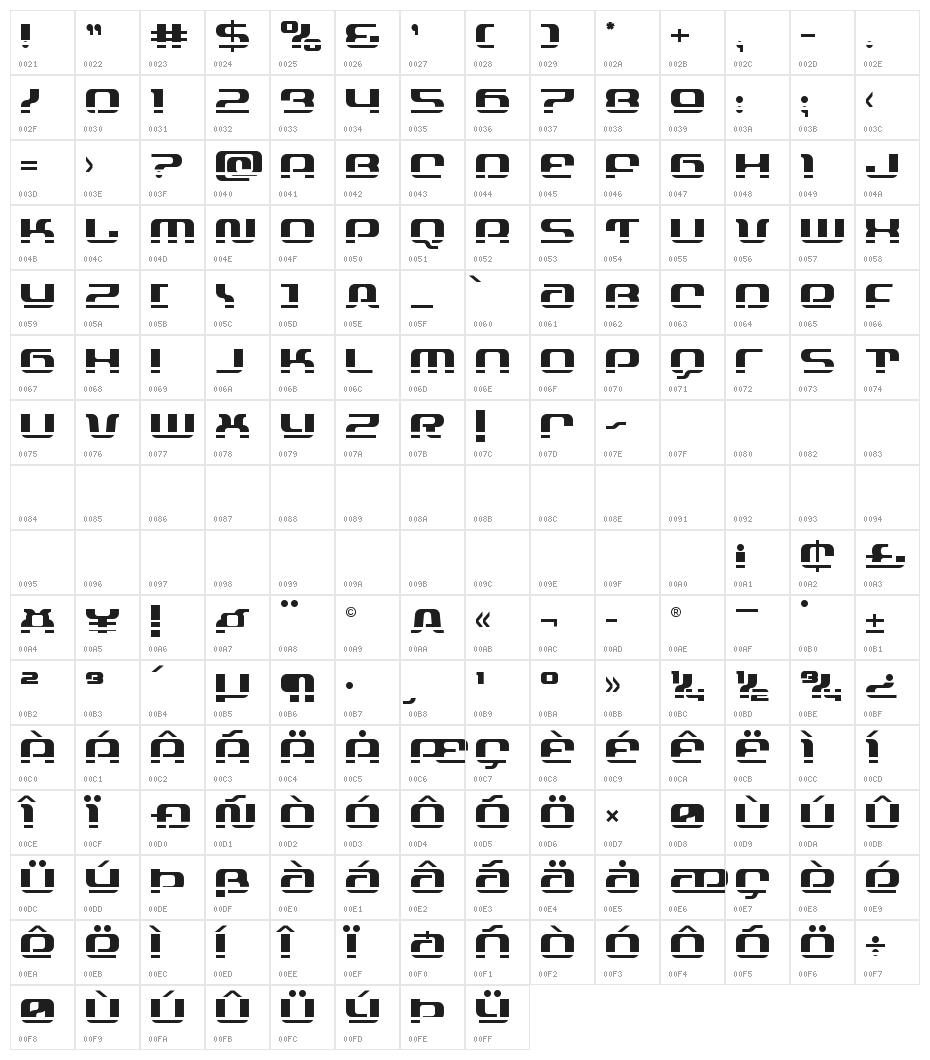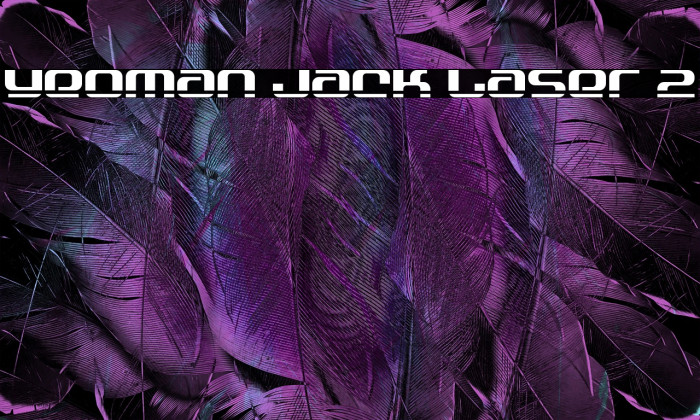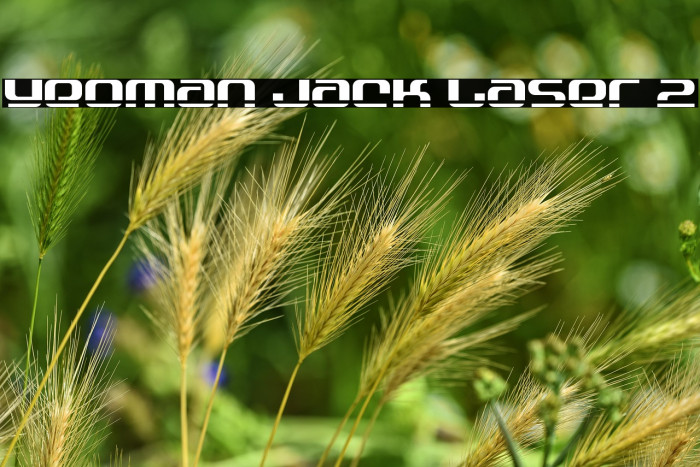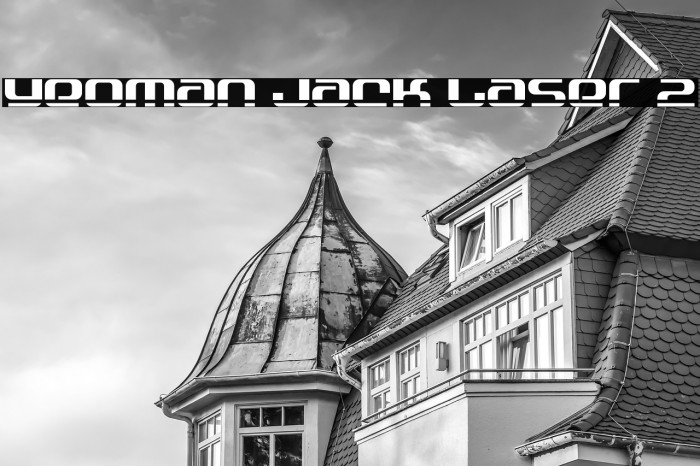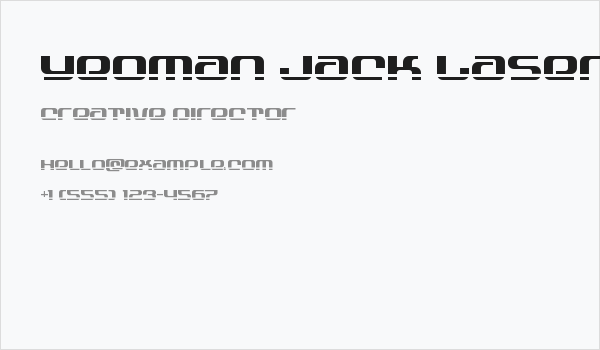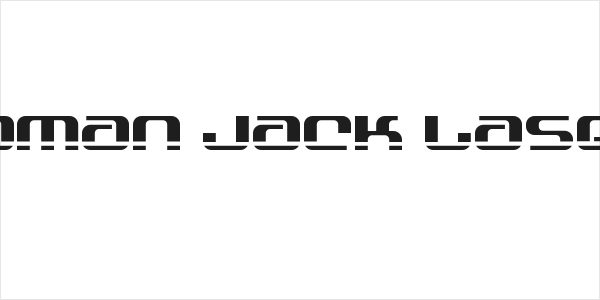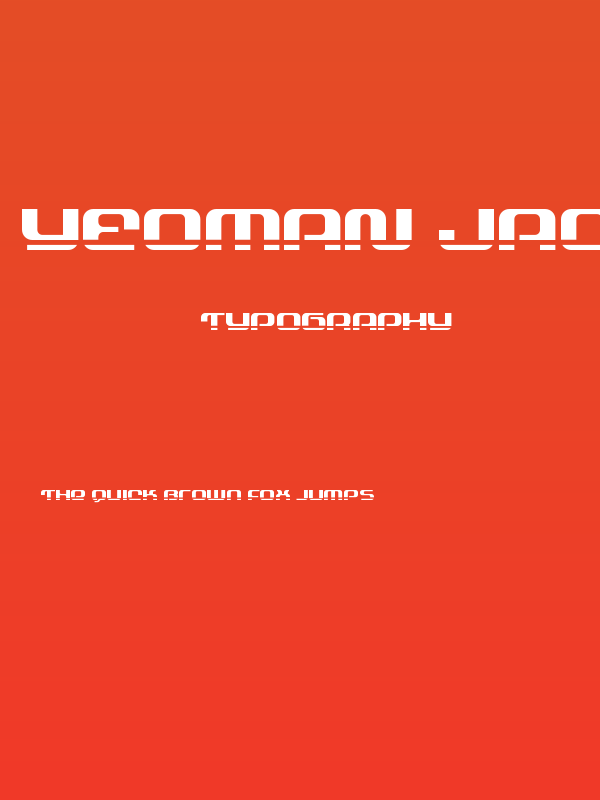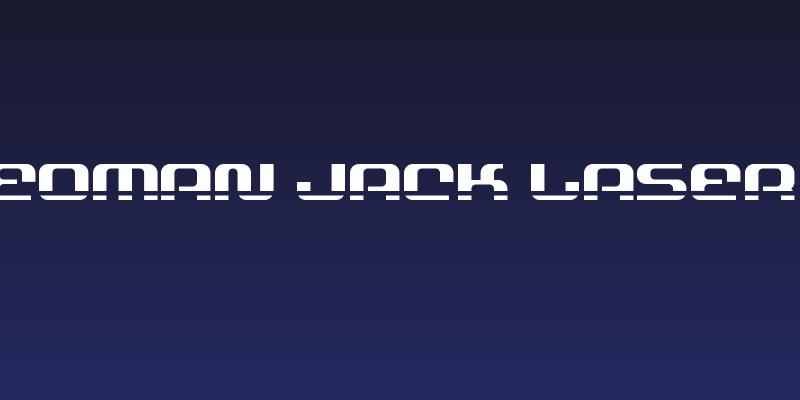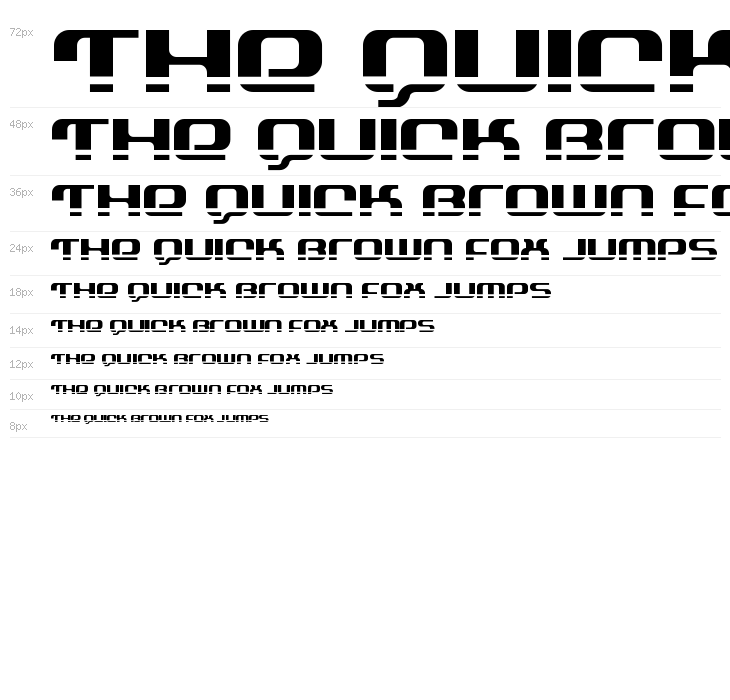
Yeoman Jack Laser 2 Font
Yeoman Jack Laser 2 Description
This font features a futuristic and geometric design, characterized by its bold, segmented letterforms. Each character is constructed with a series of horizontal and vertical lines, creating a stencil-like appearance. The uppercase and lowercase letters maintain a consistent style, with sharp angles and clean edges. The numerals and special characters follow the same design principles, ensuring uniformity across the entire typeface. The overall aesthetic is modern and industrial, making it suitable for projects that require a strong, impactful visual presence.
| Overall Style | Modern, Futuristic |
| Proposed Projects | Ideal for sci-fi themed designs, technology branding, video game titles, and futuristic posters. |